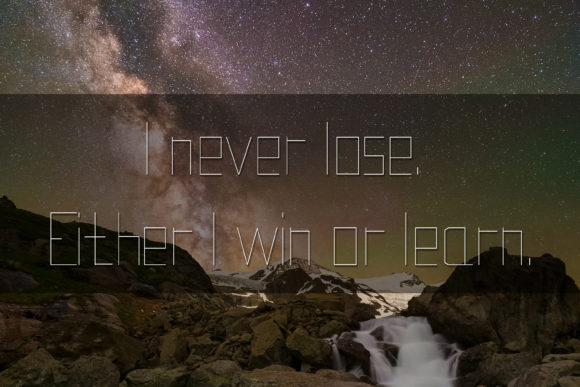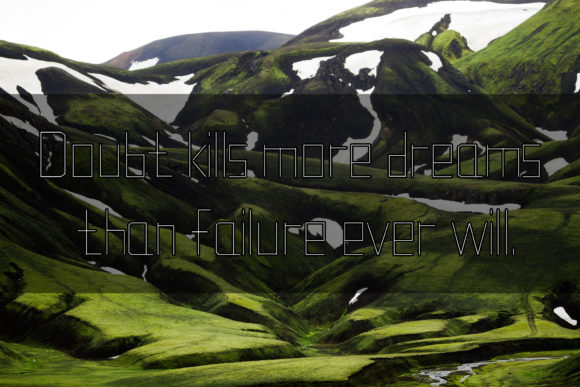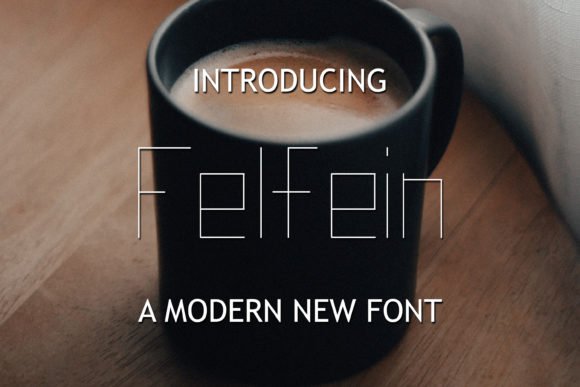
Introduction to Felfein Font
Felfein is a cool, thin lettered, and robotic looking display font.
This font is ideal for writing web designs, business cards, or pretty much anything else that requires a modern touch .
Felfein Font offers exceptional quality and versatility, making it a valuable addition to your design toolkit. Whether you’re creating for personal projects or commercial use, Felfein Font delivers professional results.